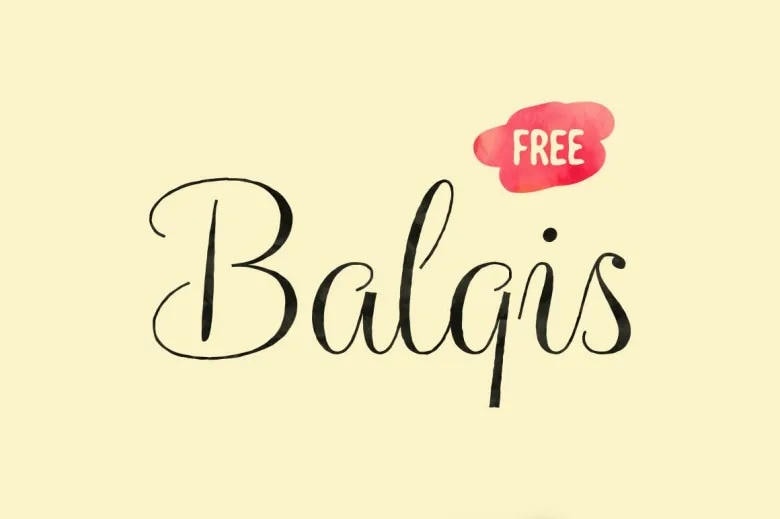
Balqis Font
Balqis can be described as an elegant striped-rough typeface calligraphy with nature and somewhat casual overtones. They select a high contrast reading level for script as their font. It can be used in weddings cards, invitation cards, logos or any place you deem appropriate- Balqis is the perfect font for you!
Balqis Handwritten Script Font